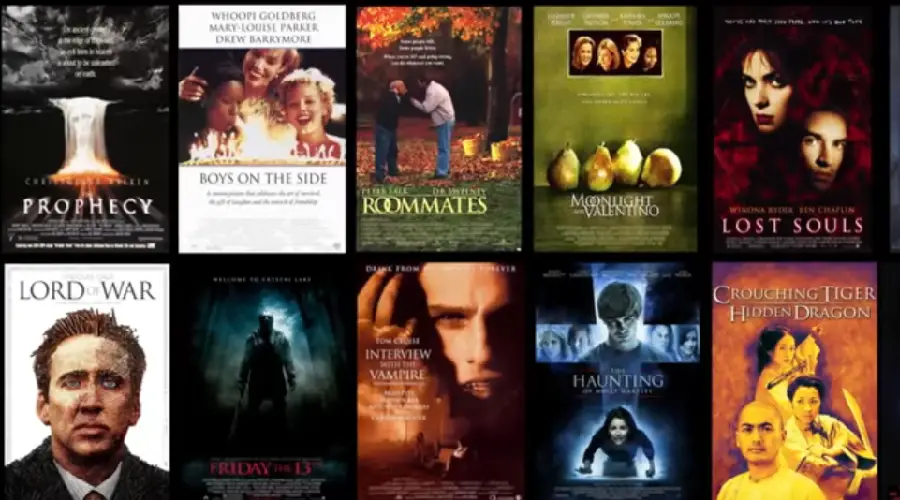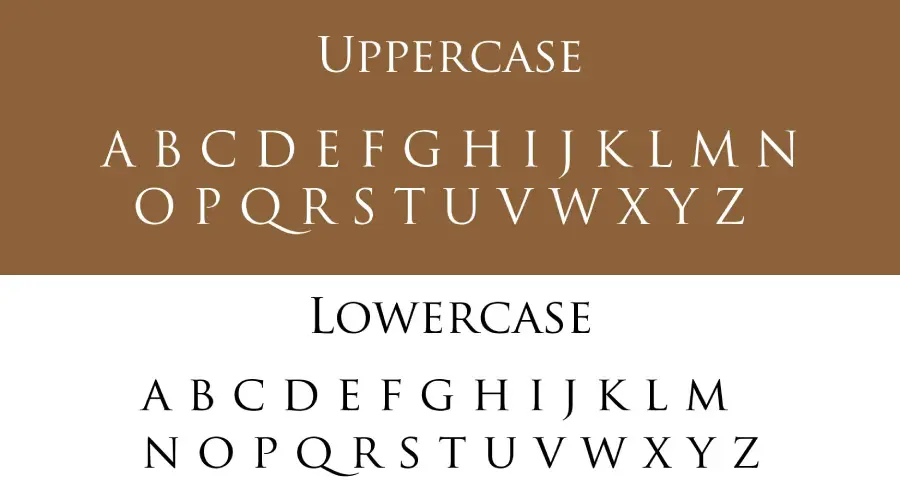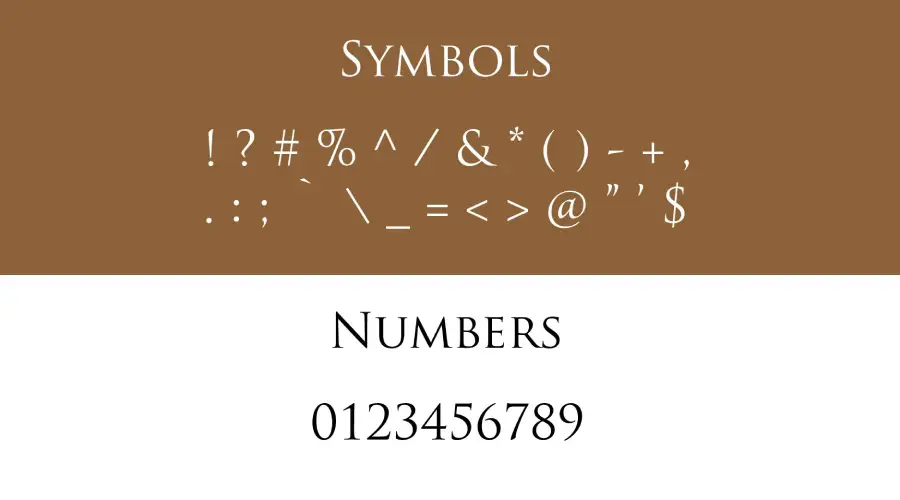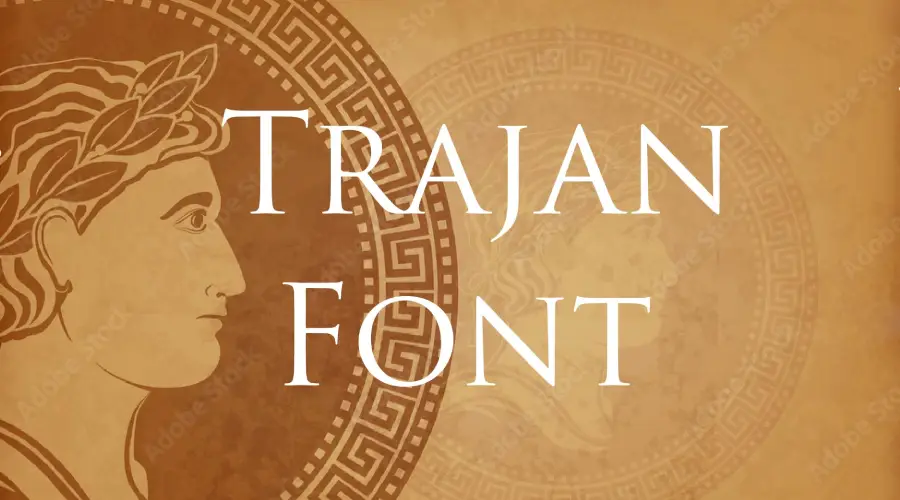
Trajan Pro font, often referred to as the Trajan font is based on Roman square capitals, which were used for inscriptions on monuments and buildings in ancient Rome. One of the most famous examples of this style is the inscription at the base of Trajan’s Column. This inscription commemorates Trajan’s Dacian Wars victories. Trajan font takes its name from this column, and it was designed by Carol Twombly for Adobe in 1989.
What is Trajan Pro Font?
Trajan Pro, also known as Trajan font is a serif typeface with only uppercase letters, as the Romans did not use lowercase letters. It has a crisp and elegant appearance, with subtle variations in stroke width and tapered serifs. It also has some distinctive features, such as the splayed legs of the letter M, the curved tail of the letter Q, and the dot-like punctuation marks that separate words.
Trajan font is well-suited to display purposes, such as titles, headlines, logos, posters, and book covers. Using it can imply authority, sophistication, tradition, and a connection to the past. It is often used for projects related to history, culture, art, religion, law, and politics.
Effectivity of the Font
Trajan font is one of the most popular and widely used fonts in the world. It has been praised for its readability, beauty, and versatility. It can create a strong visual impact and attract attention, especially when used in large sizes. It can also work well with other fonts, such as sans-serif or script fonts, to create contrast and harmony.
Trajan Pro font has been used for many famous logos and brands, such as The New York Times Magazine, The West Wing, Titanic, The Hunger Games, The Da Vinci Code, Victoria’s Secret, and more. It has also been used for many movie posters, such as The Bodyguard, Crouching Tiger Hidden Dragon, Children of Men, etc. It has been used in movie posters so much that people sometimes call it the Arial of Movie posters. That’s why Vox even made a video about it. You can check out this Vox video about the rise of the Trajan typeface.
To Sum It Up,
Trajan font is a serif typeface inspired by ancient Roman square capitals. It has a crisp and elegant appearance, with only uppercase letters and some distinctive features. It is well-suited to display purposes, such as titles, headlines, logos, posters, and book covers. It can convey a sense of authority, sophistication, tradition, and connection to the past.
Trajan font is one of the most popular and widely used fonts in the world. It has been used for many famous logos and brands, as well as movie posters. It has a high level of readability, beauty, and versatility. It can create a strong visual impact and attract attention, especially when presented in large sizes.